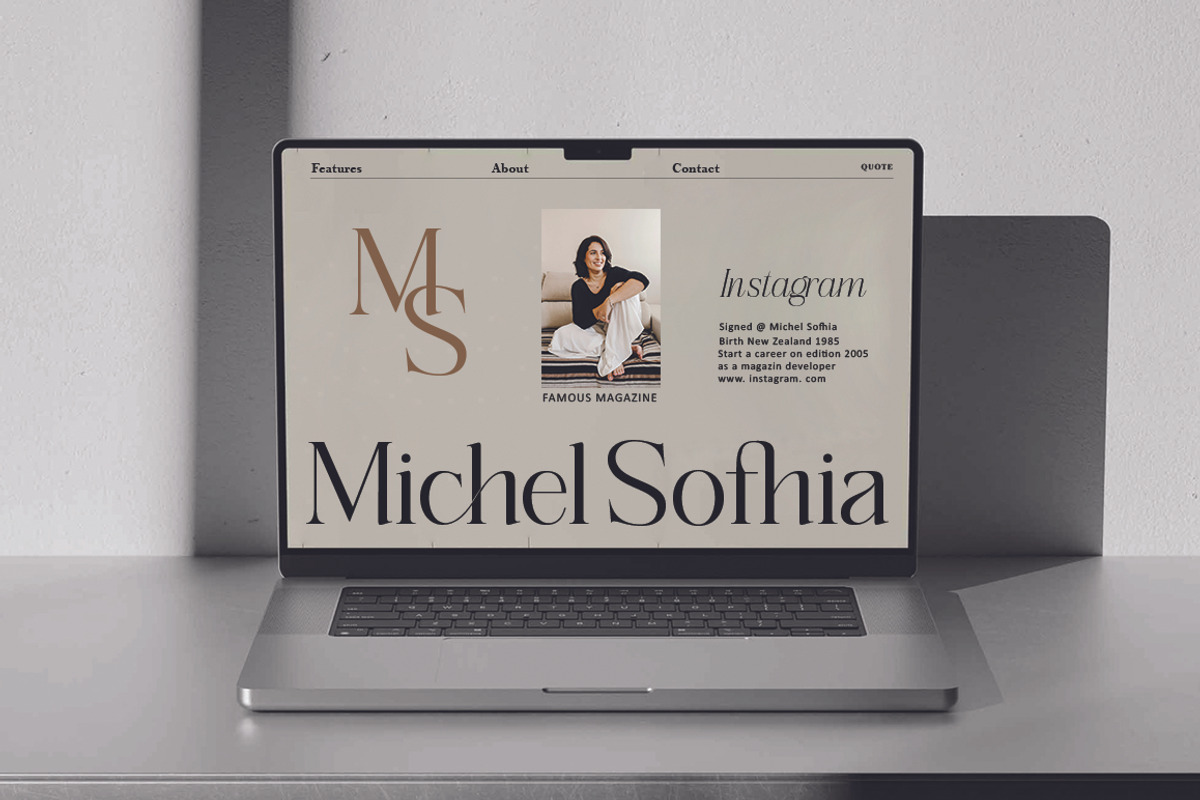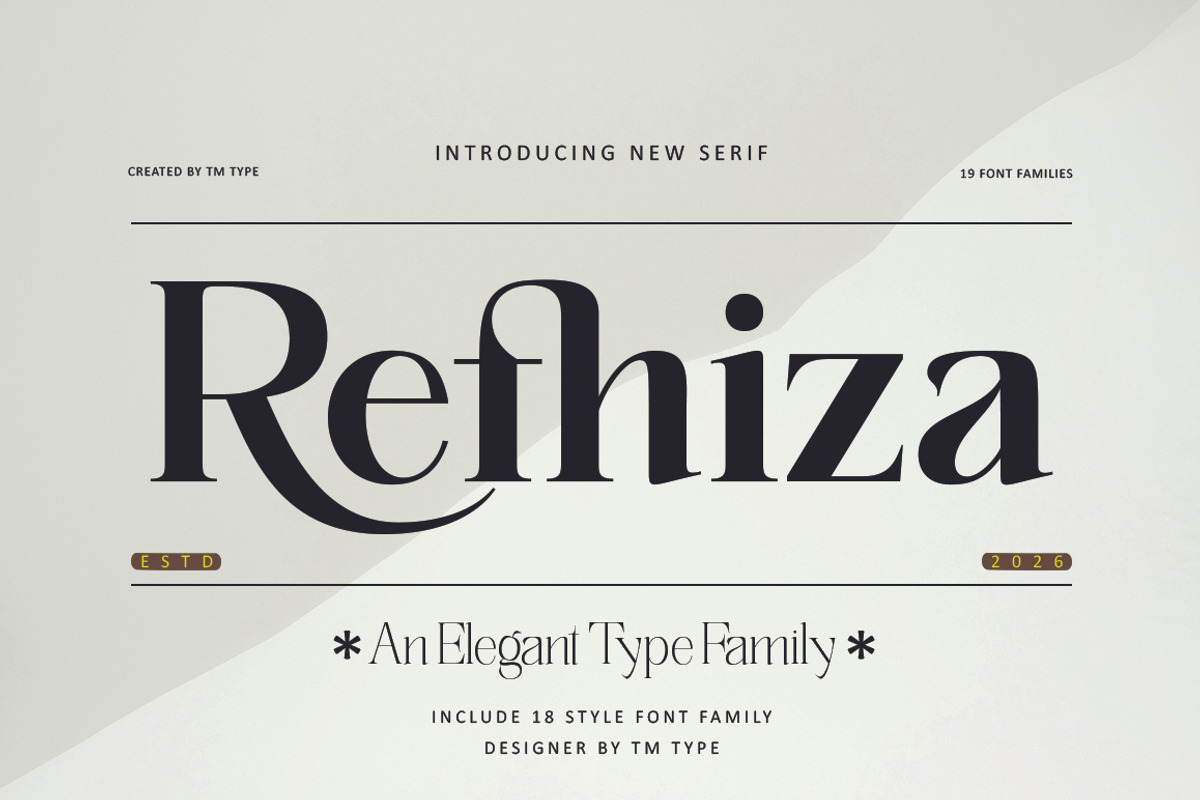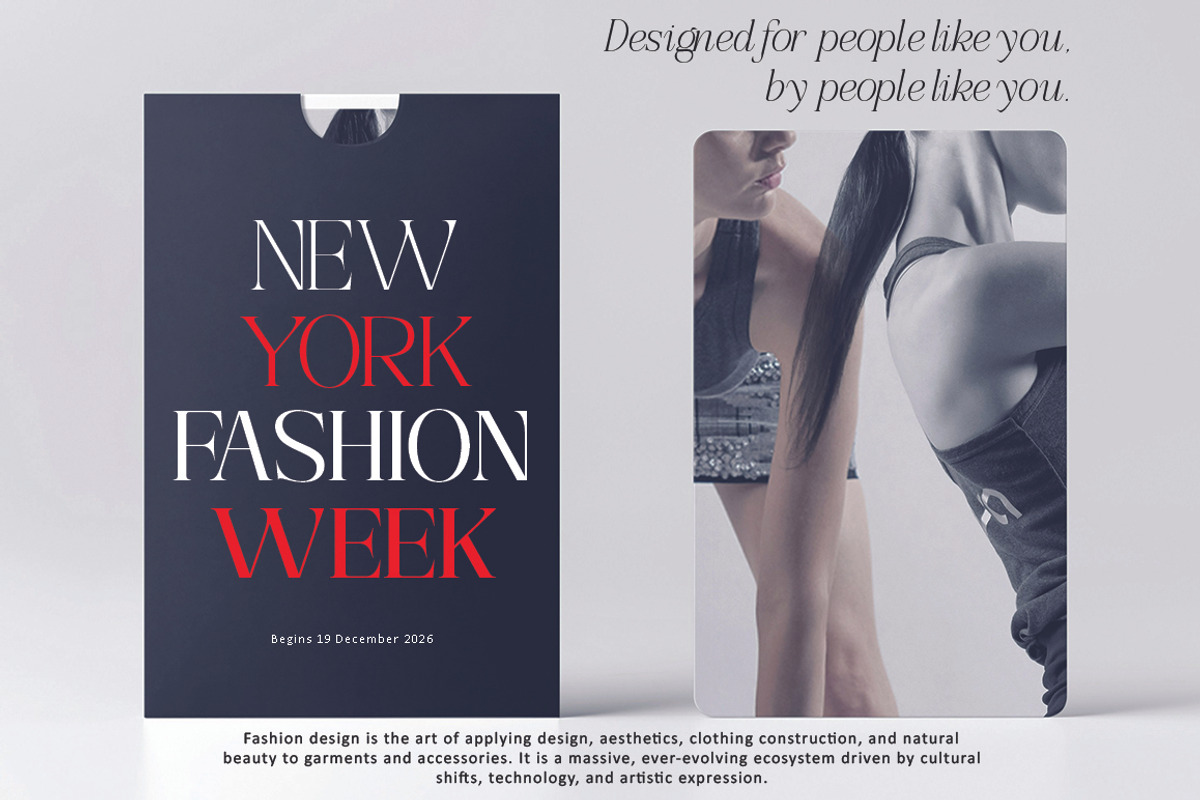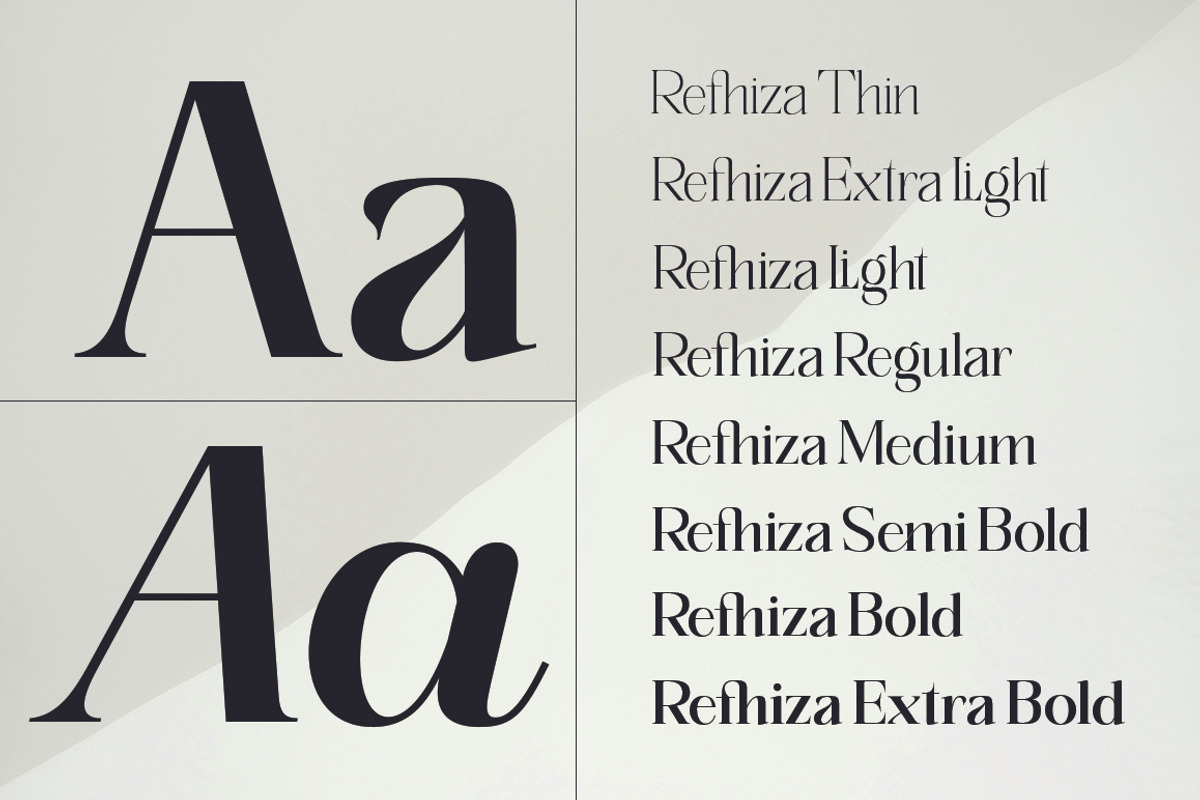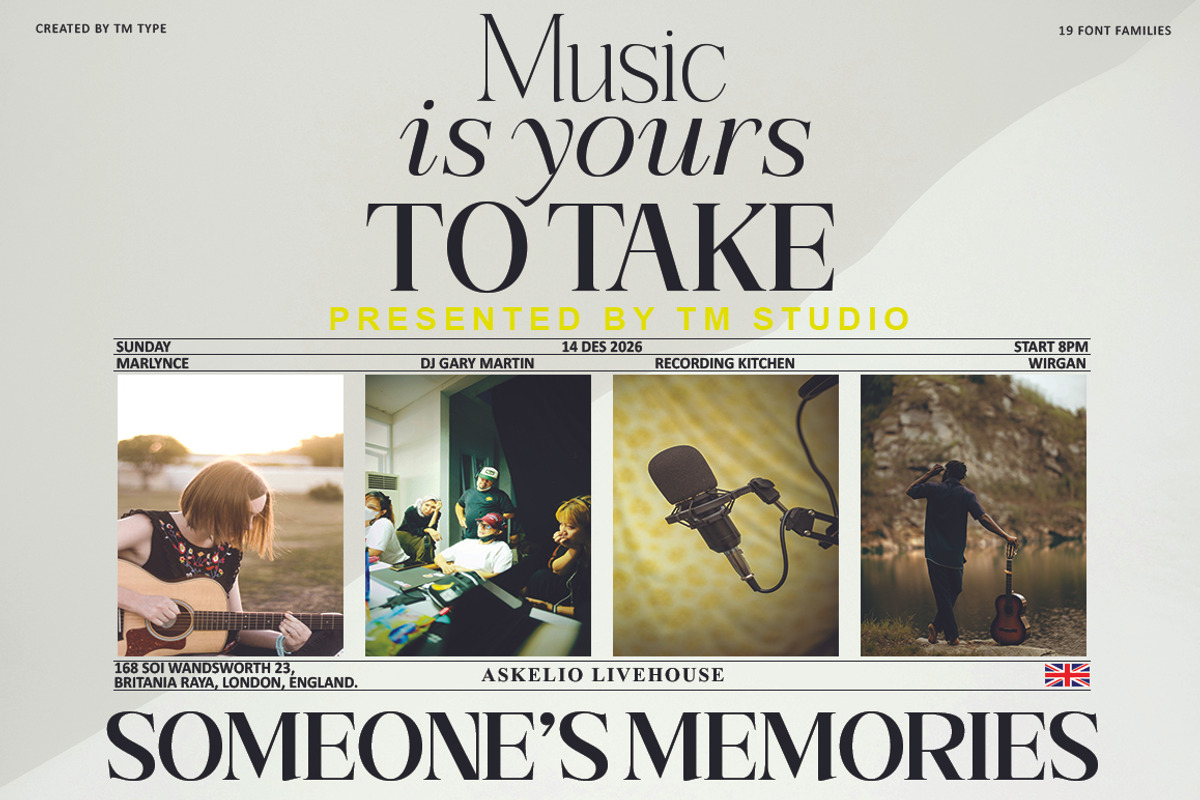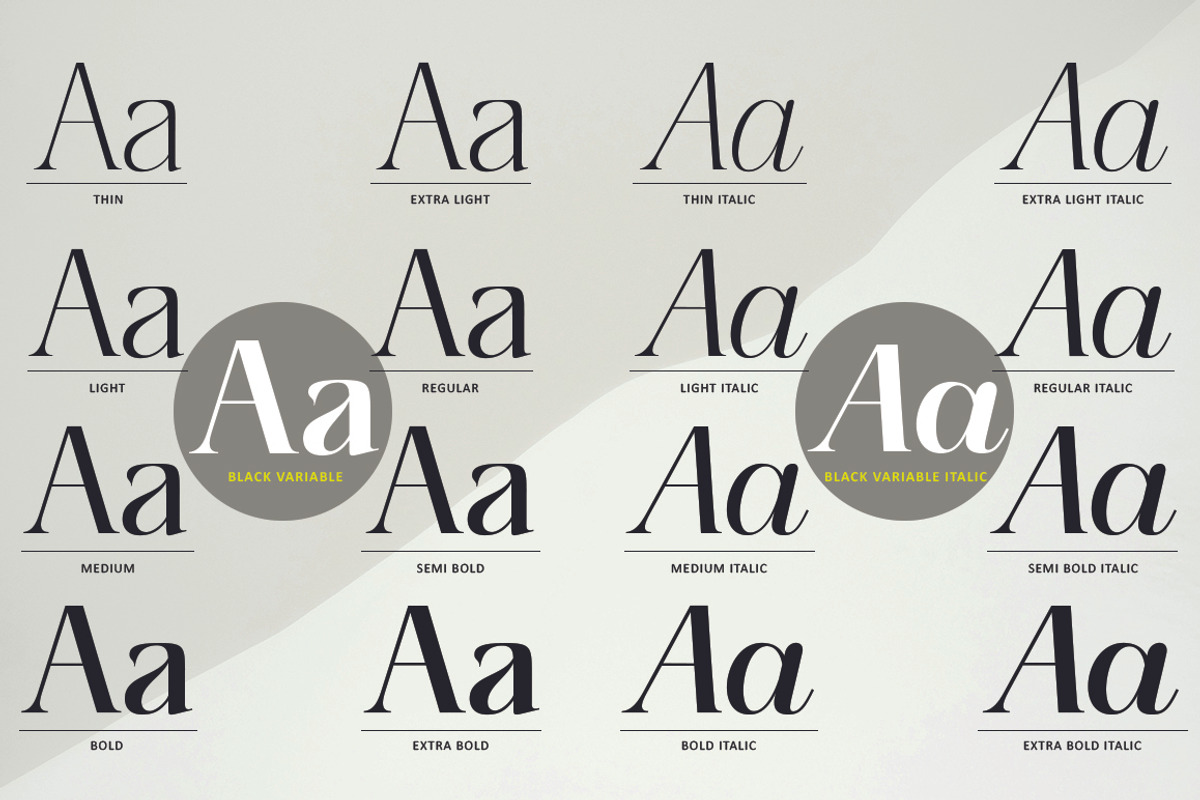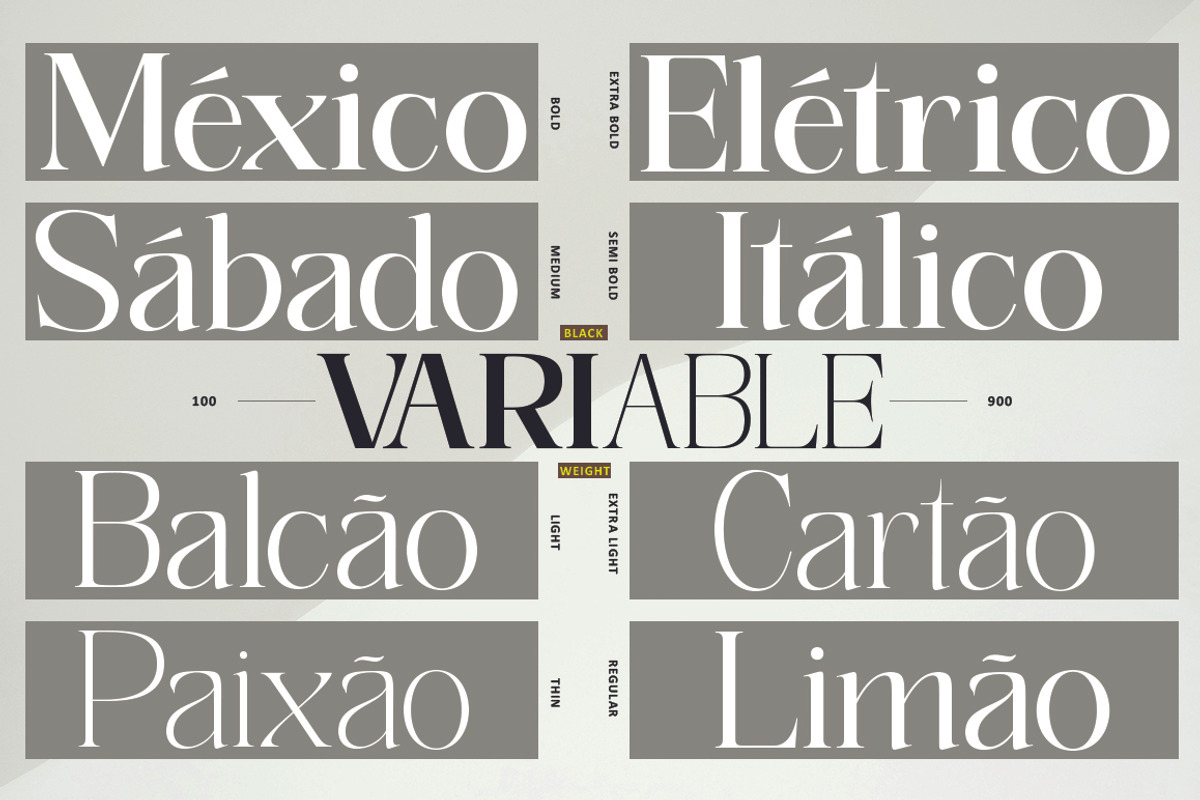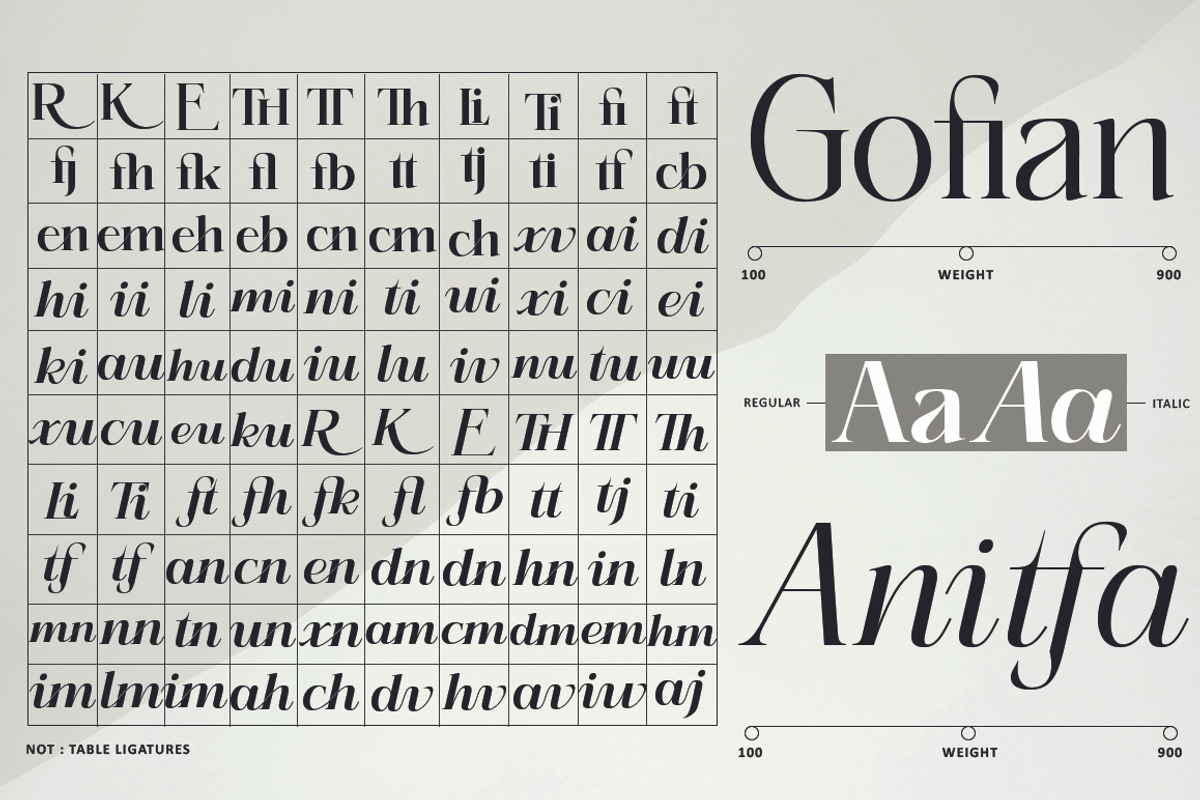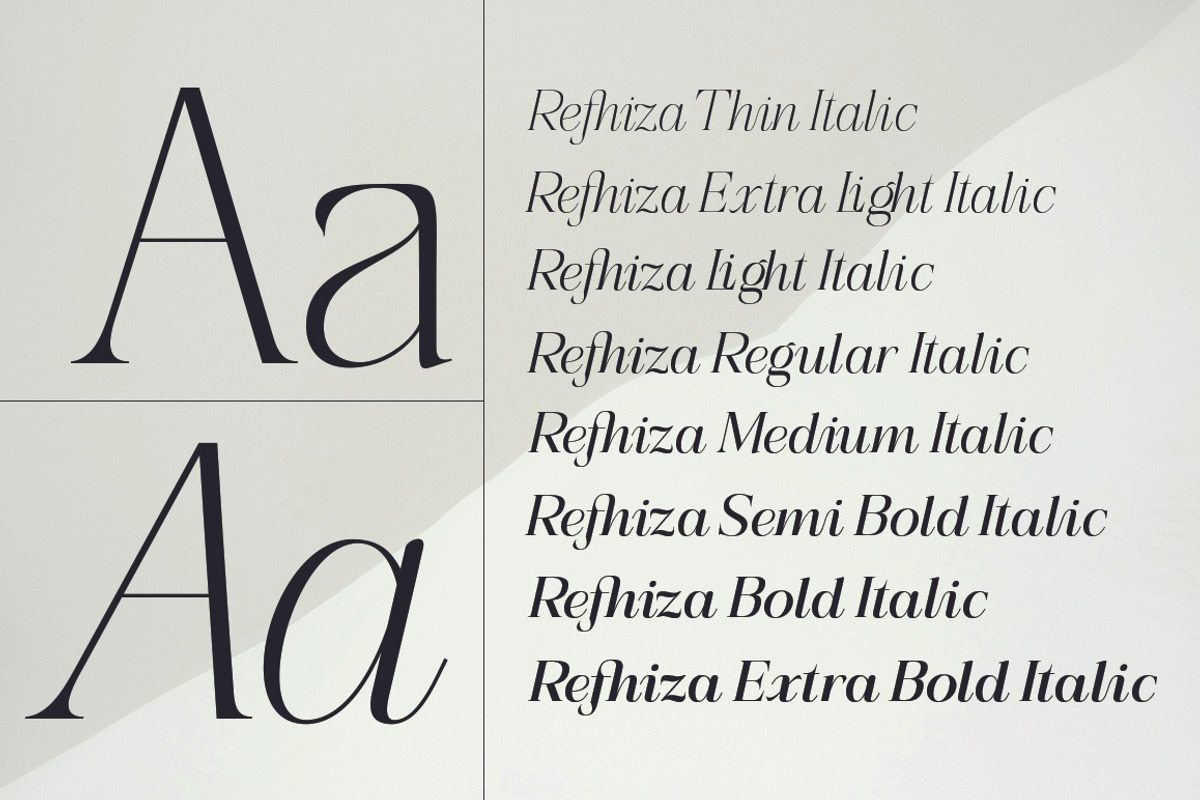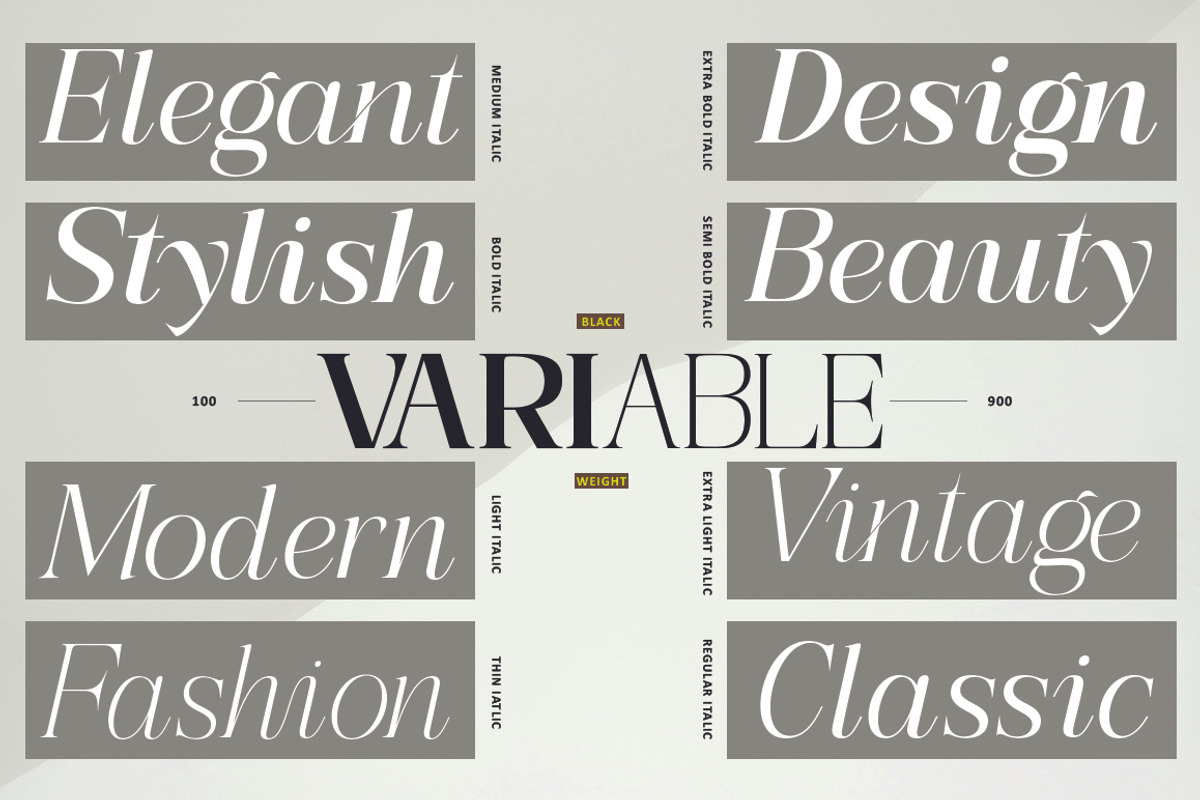
Refhiza
Introducing Refhiza, Serif & Italic Typeface for the Modern Creative
Where precision meets elegance. Refhiza is a meticulously crafted typeface family that bridges the gap between modern clarity and timeless sophistication. Every letterform is engineered with deliberate balance — clean structure, subtle contrast, and refined curves that command attention without demanding it. Whether you're setting a headline or composing a full editorial spread, Refhiza adapts effortlessly, bringing a quiet confidence to every design it touches.
The Typeface, Defined Step into a world where typography becomes an experience. Refhiza harmonious proportions and contemporary sensibility make it equally at home in bold brand identities and delicate, refined compositions. Its purpose-built italic style — a true slant design, not a mechanical lean — introduces a natural sense of movement and rhythm, giving your work a dynamic yet polished character. Two distinct styles. One unified vision.
Key Features ✦ Modern Clarity A clean, structured architecture ensures effortless readability at any size, from fine print to large-format displays — without sacrificing elegance. ✦ Elegant Ligatures A curated selection of sophisticated ligatures elevates your typography, adding expressiveness and visual refinement to every word. ✦ Advanced OpenType Features Full OpenType support gives designers precise typographic control — fine-tune spacing, alternate glyphs, stylistic sets, and more. ✦ Extensive Language Support With support for over 90 languages, Refhiza is built for the world stage — ideal for brands and creatives with a global voice. ✦ True Slant Italic Design Unlike a simple oblique, the italic style is purpose-built from the ground up — flowing naturally alongside the upright styles for a seamless, organic feel.
Made For Use CaseWhy It Works Editorial & Publishing Exceptional readability for magazines, books, and long-form print Branding & IdentityClean, modern forms that build memorable, lasting impressionsWeb & Digital DesignOptimized for clarity and legibility across all screen sizesPackaging & PrintAdds a premium, contemporary touch to physical materialsInvitations & StationeryElegant and versatile — equally suited to formal and creative occasions